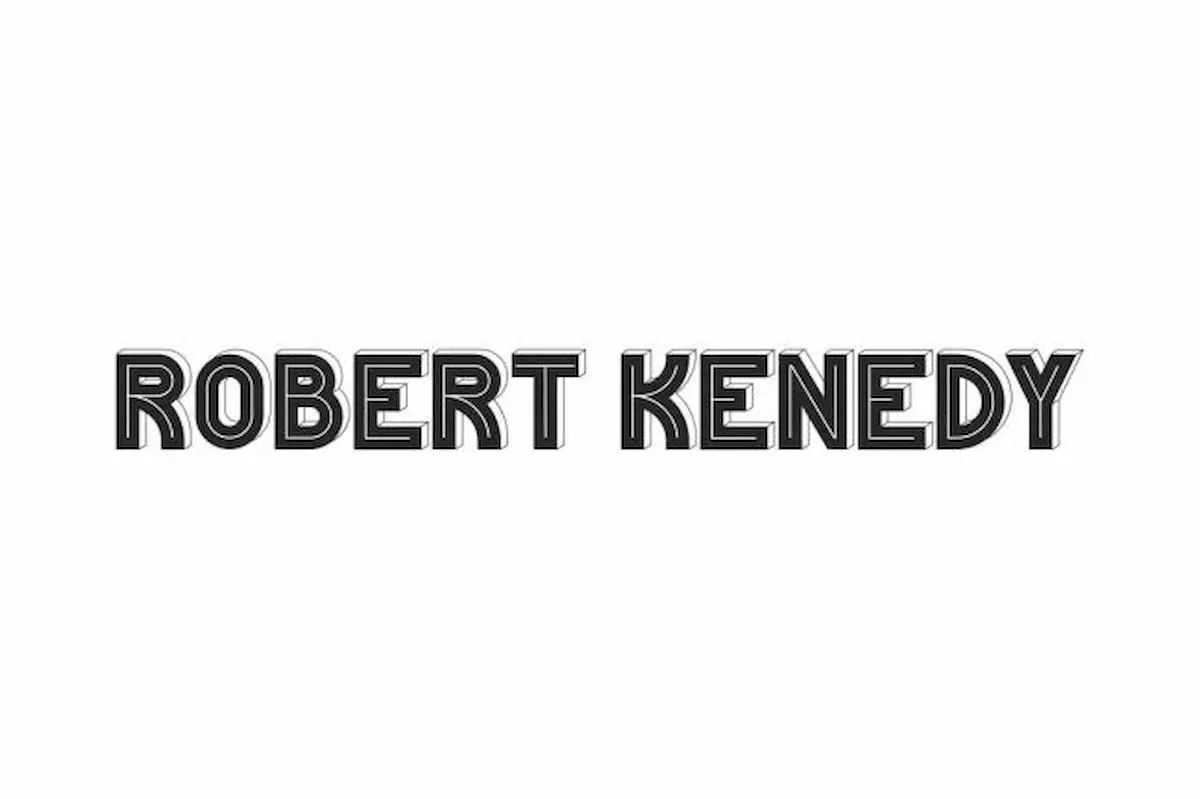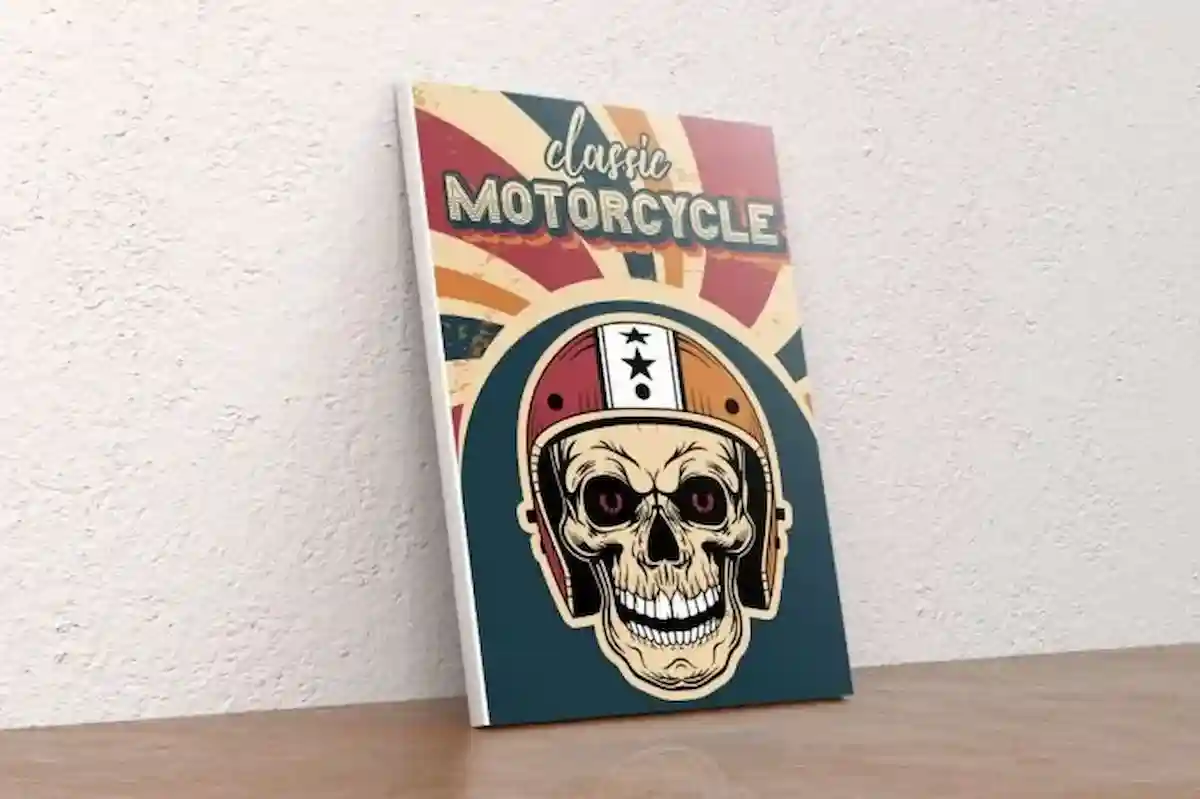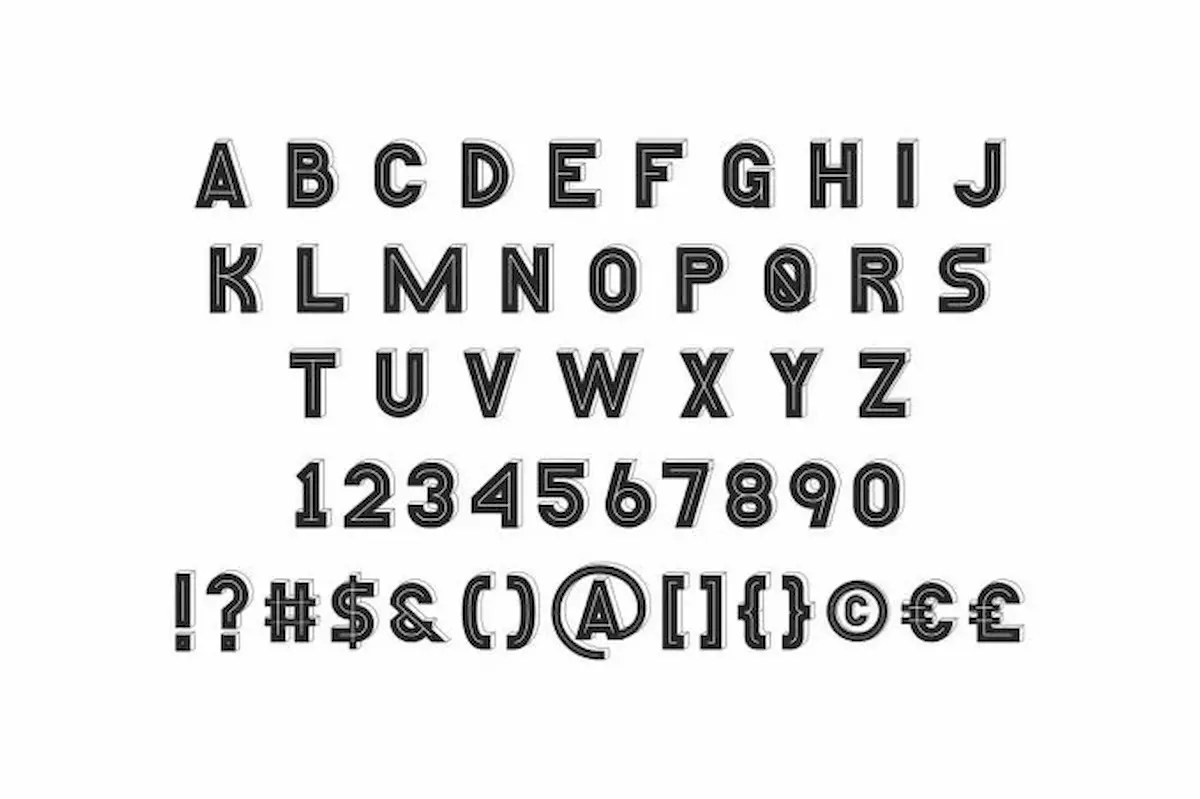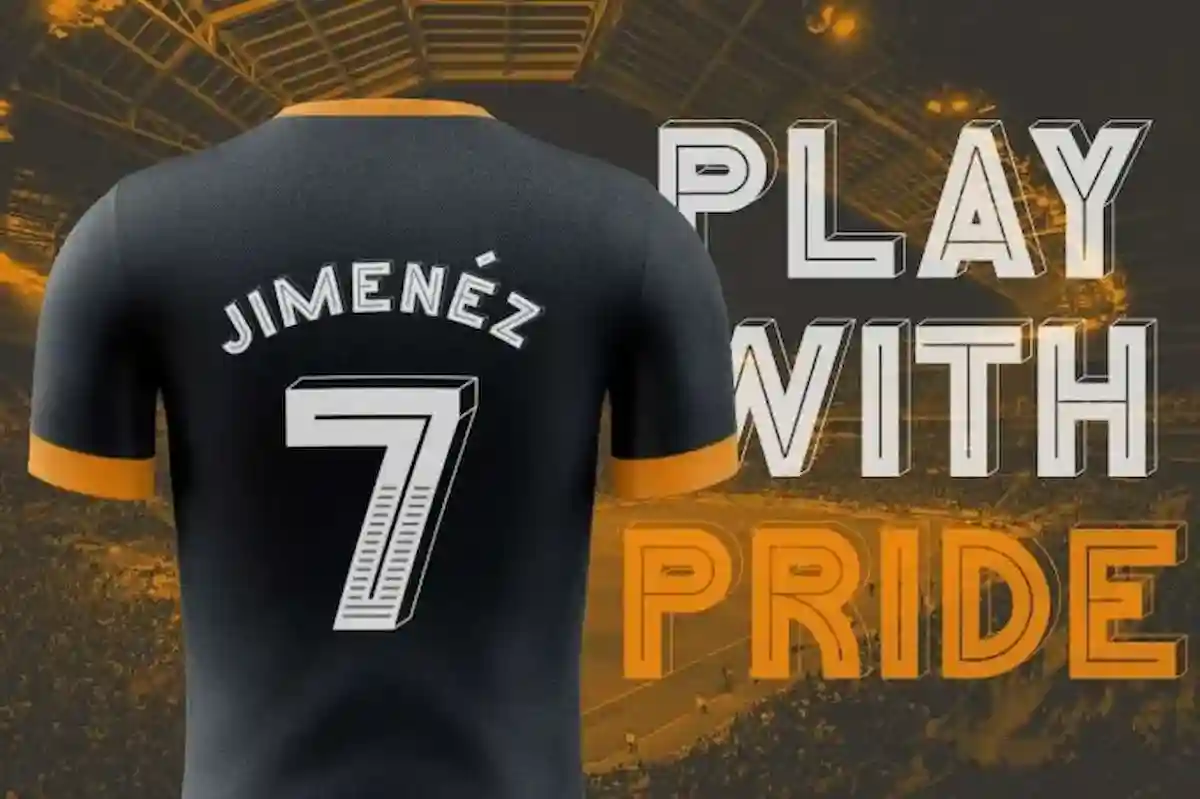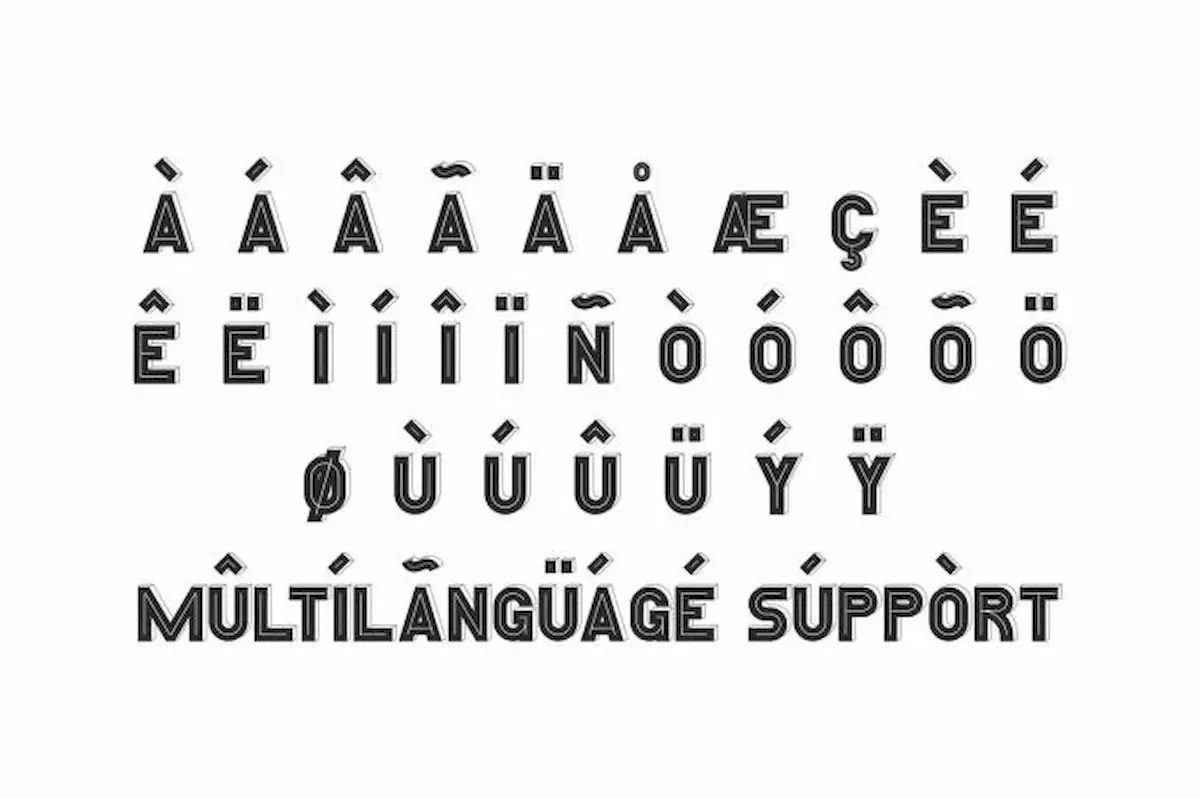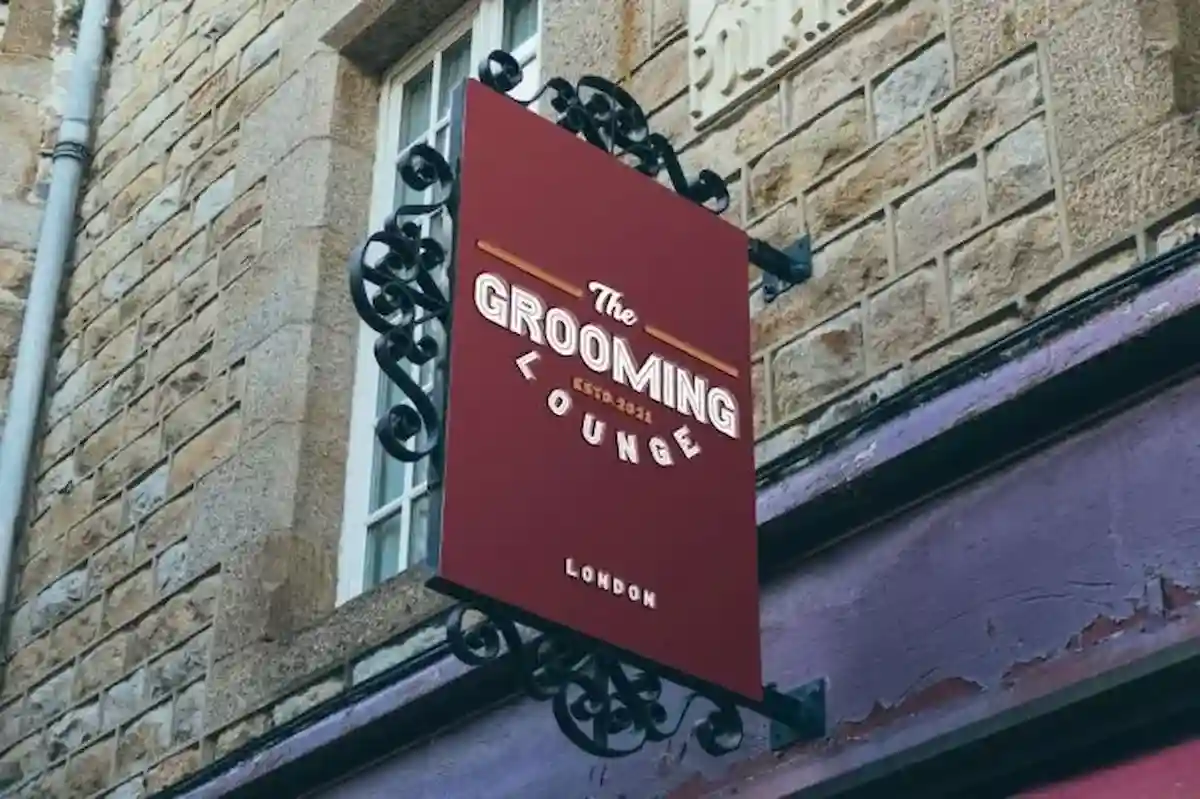
Robert Kenedy Font is a vintage sans serif display font by NihStudio. This font that will be suitable for music, sports and anything that requires an bold and retro style
Robert Kenedy Font is a sans serif display font with a outline and 3D look that has two styles. This font is not only bold with outlines but also wrapped in a 3D look, making it a great old style, try the font by typing your own text below. Please note that the test font below is a demo file, so some specimens/characters will not show up.